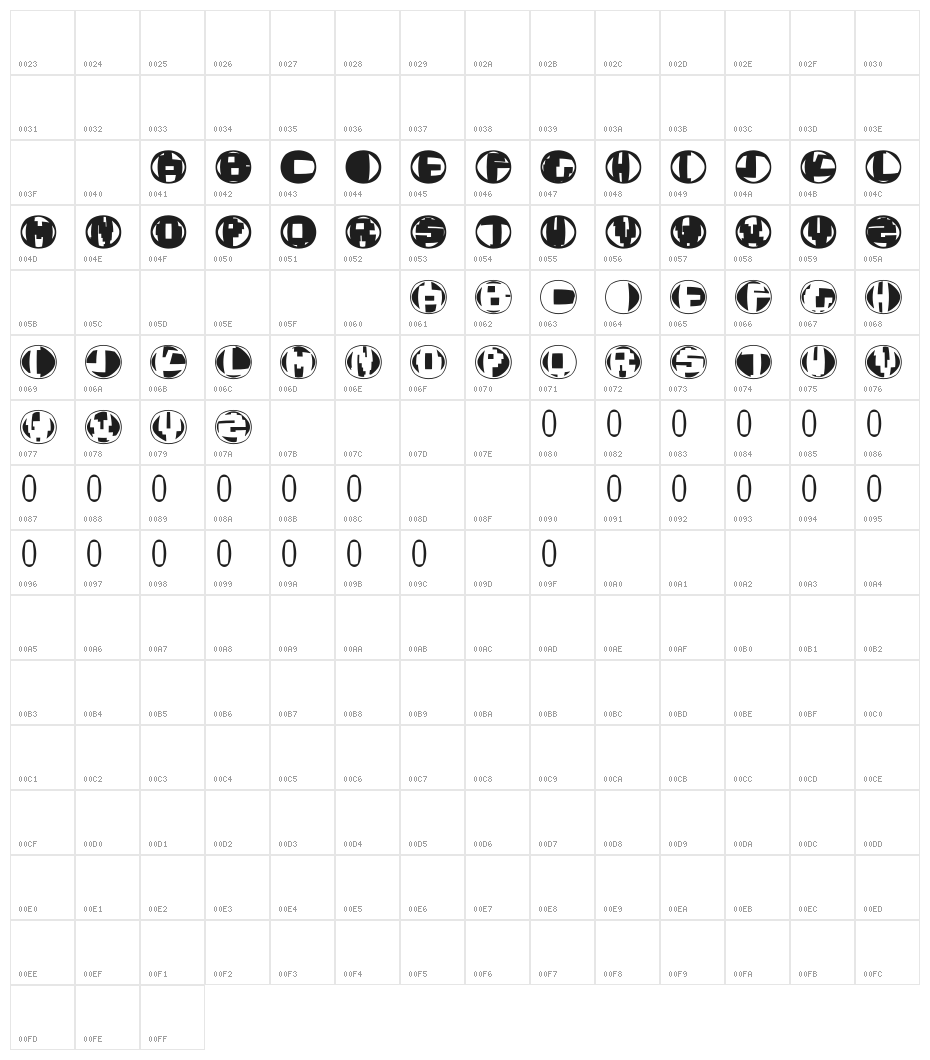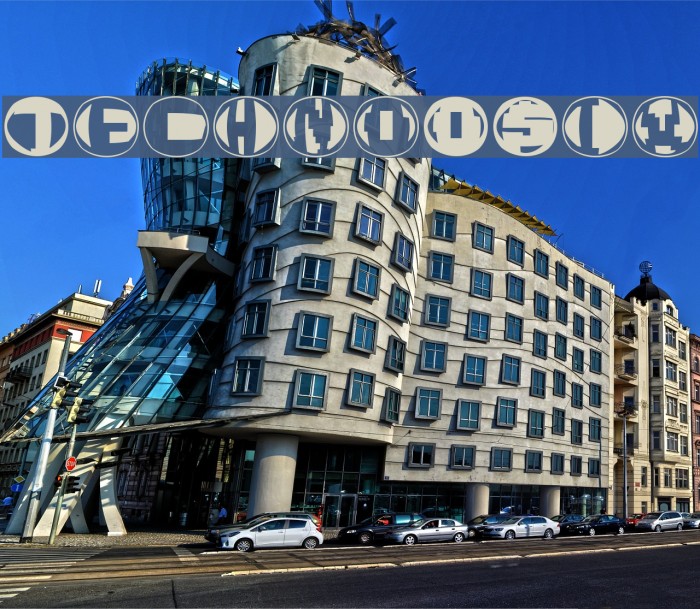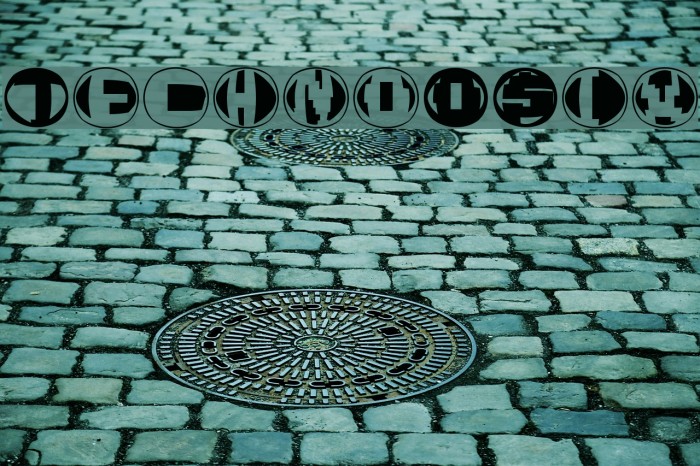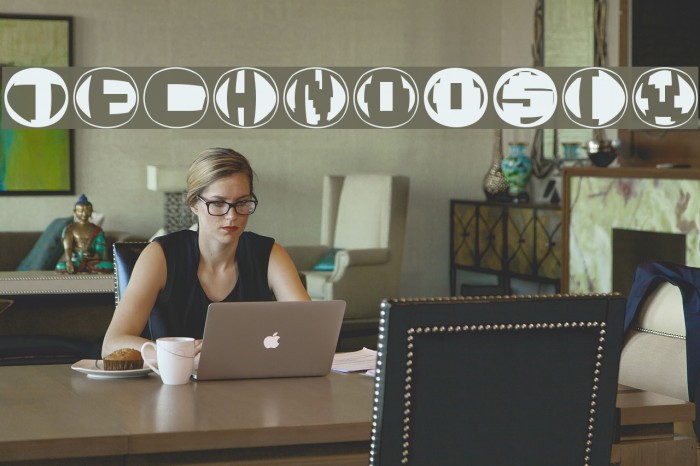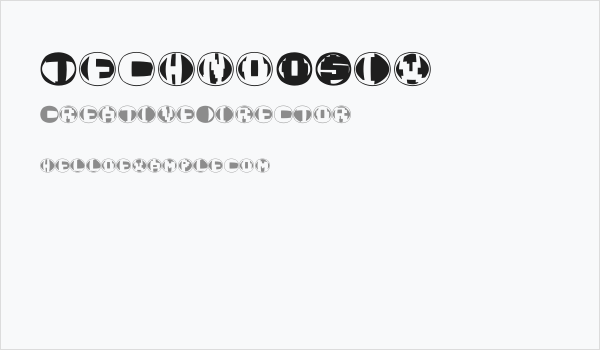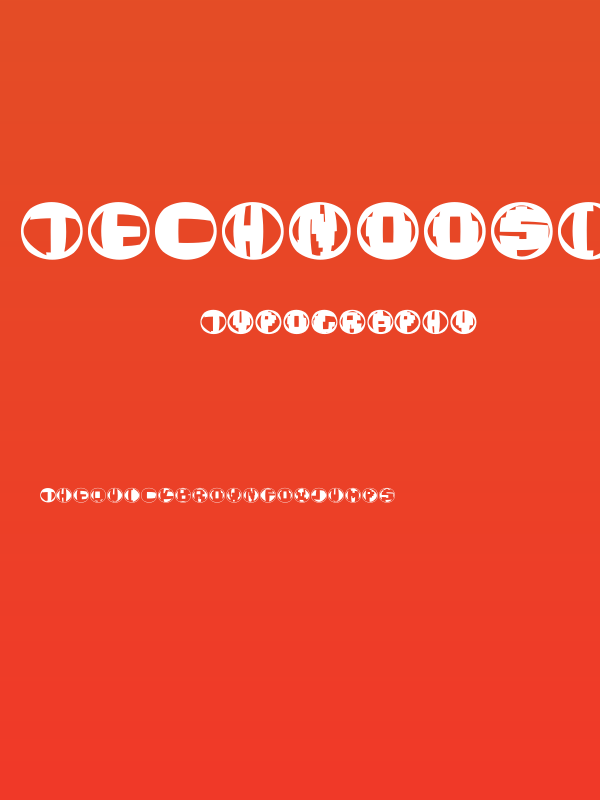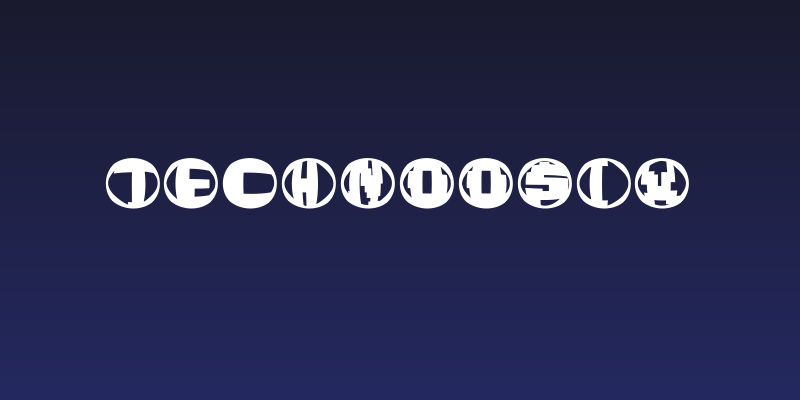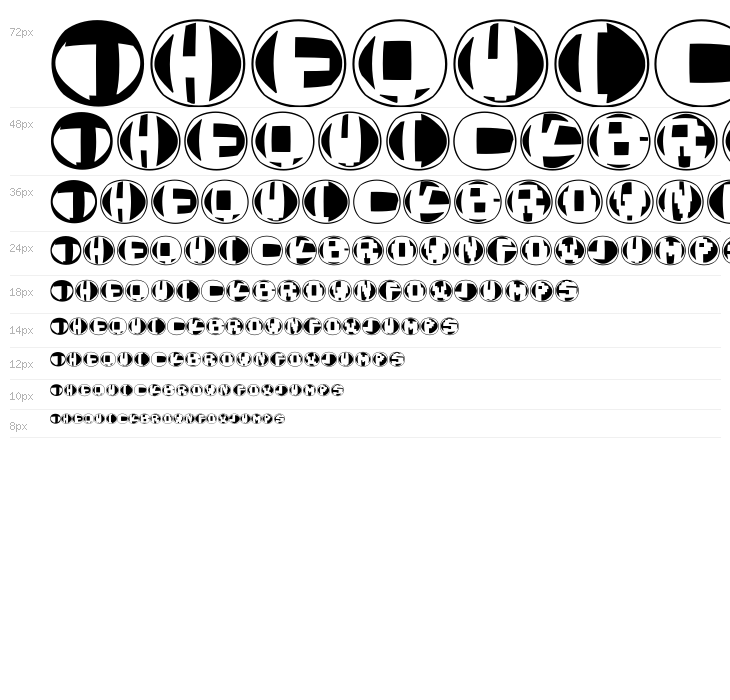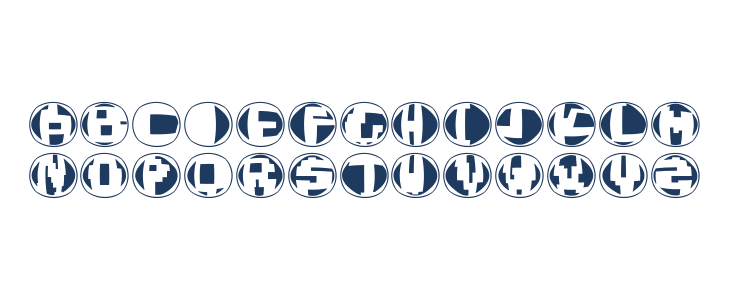
TechnoOSix Font
TechnoOSix Description
This font features a futuristic and abstract design, with each character enclosed in a circular shape. The letters and numbers are stylized with geometric cuts and shapes, creating a digital and techno-inspired appearance. The bold, solid forms contrast sharply with the negative space, enhancing the modern and edgy look. The font's unique style makes it stand out, ideal for projects that require a distinct and innovative visual impact. Its circular enclosure adds a cohesive and uniform element across all characters, making it suitable for creative and experimental designs.